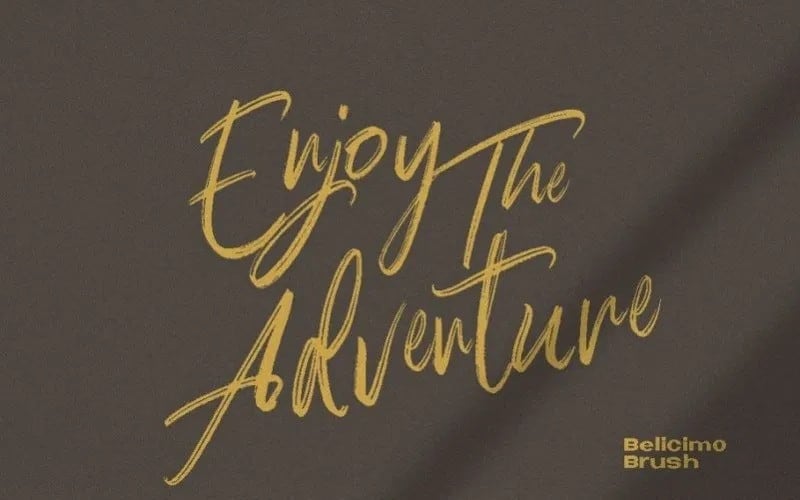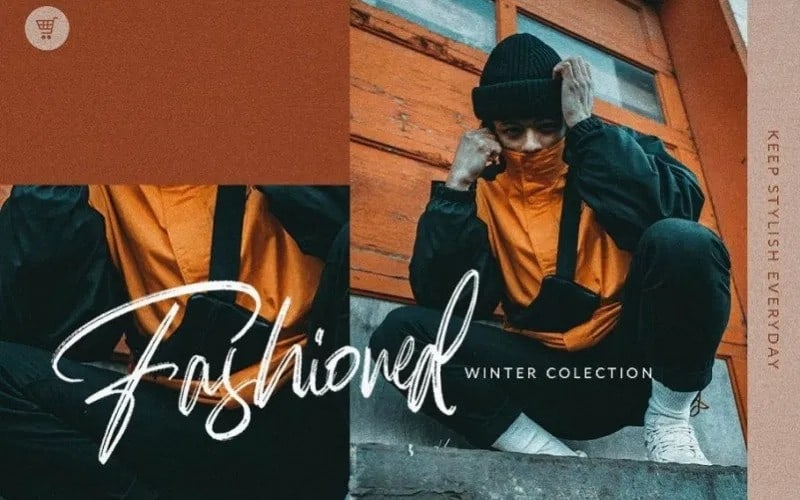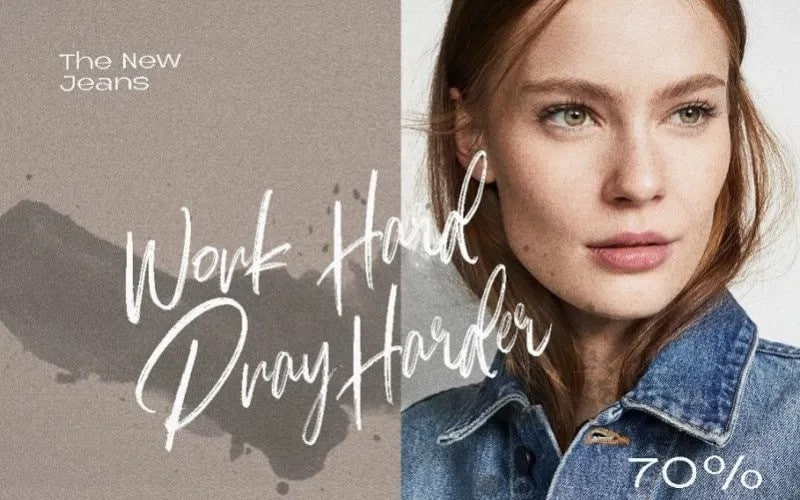
Balecimo Brush Font
This Balecimo Brush font works really well for Logos and Apparel Design. It’s also great for creating Prints or Merchandise, as you can use the illustrative qualities of the shapes to create an art piece. Made from font designer named Dirtyline Studio. It’s stylist brush font with a real hand-painted wet brush look. Ideal for signature, logos, handwritten quotes, product packaging, header, poster, merchandise, social media & greeting cards.